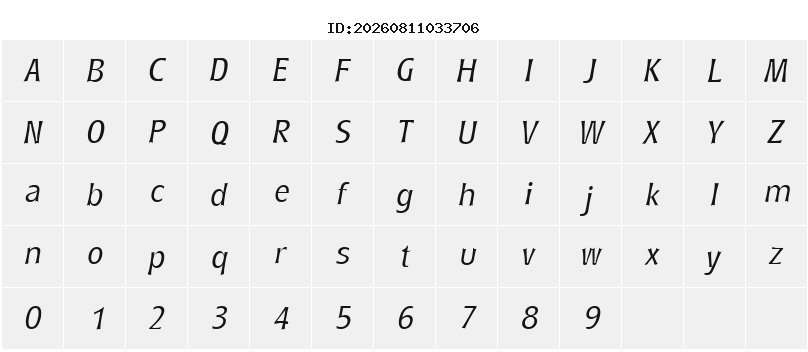
• Font Name: RoundestLH
• Full Font Name: RoundestLH Italic
About RoundestLH.ttf
RoundestLH.ttf is a modern, elegant sans-serif font designed for ultimate readability and visual harmony. Perfect for branding, headlines, web design, and print materials.